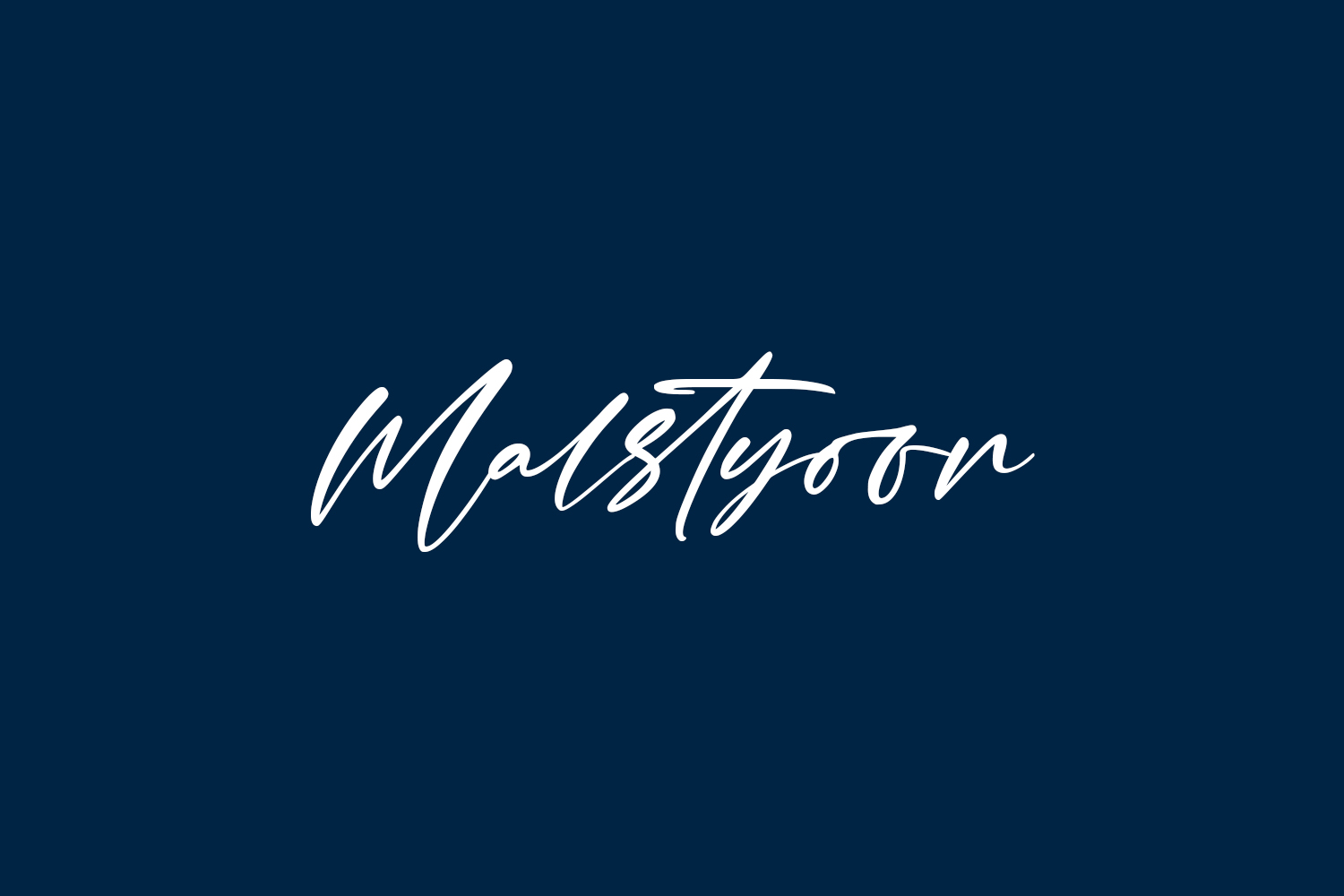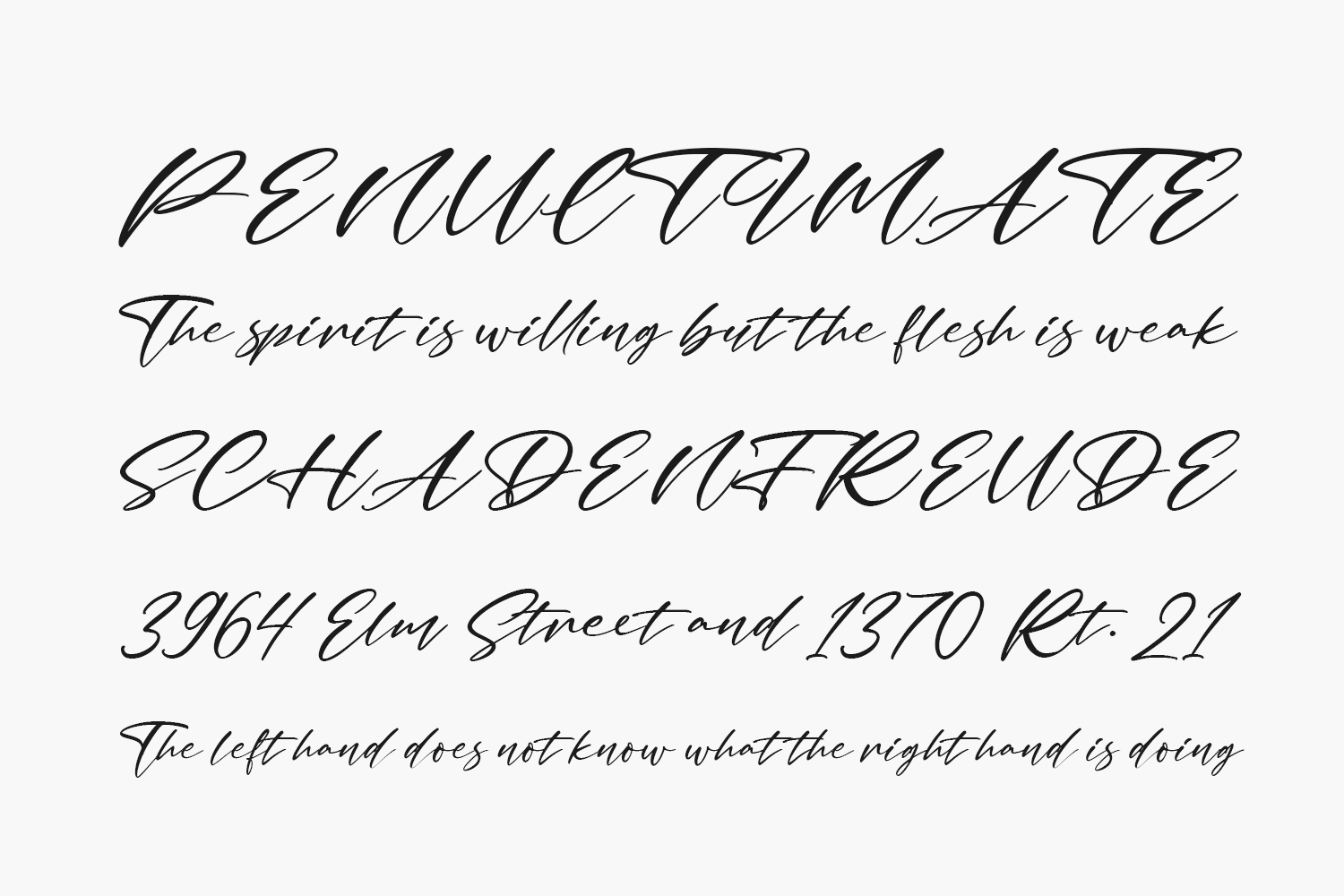
Malstyoor Free Font is a modern and stylish script font that has been masterfully designed to become a true favorite. It maintains its classy calligraphic influences while feeling contemporary and fresh. Malstyoor is perfect for branding projects, logos, wedding designs, social media posts, advertisements, product packaging, product designs, label, photography, watermark, invitation, stationery, and any projects that need handwriting taste. Malstyoor Free Font was designed by Abas Creative and is free for personal use only. Please purchase the full version for commercial use.